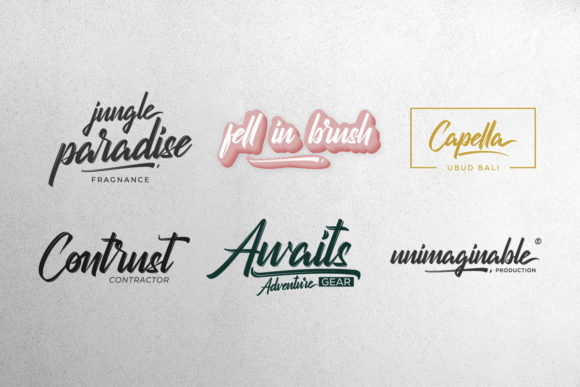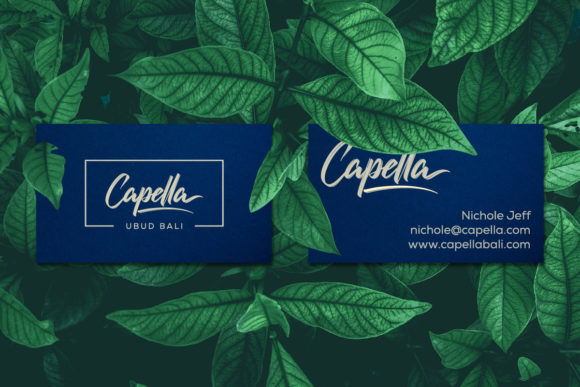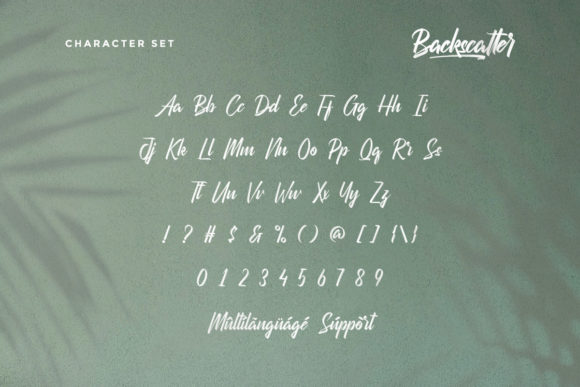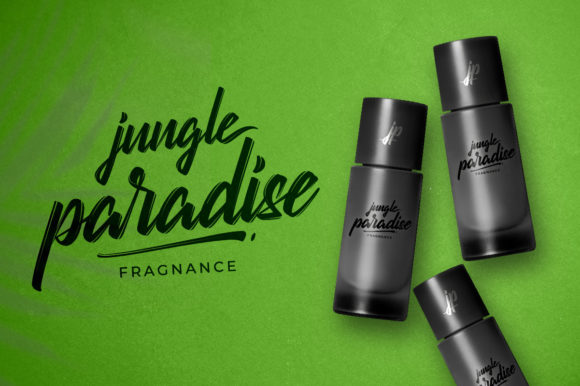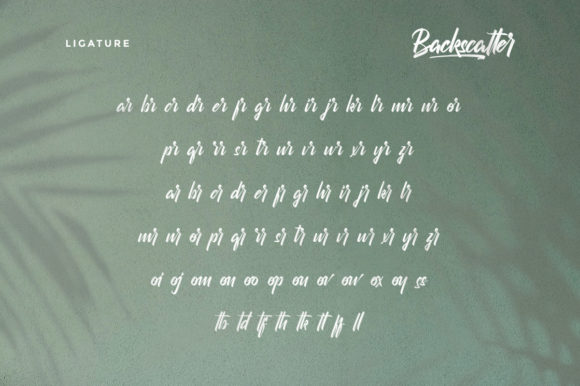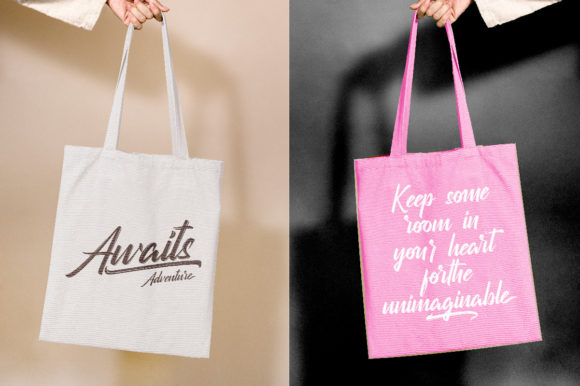
Introducing Backscatter Font: A Beautiful Cursive Brushed Script Font
Are you looking for a font that can add a touch of nostalgia and personality to your designs? Look no further than Backscatter Font, a stunning cursive brushed script font that exudes confidence and dynamism. In this article, we’ll dive into the features and benefits of Backscatter Font, and explore how it can elevate your design projects.
A Strong and Confident Font
Backscatter Font is a beautiful and elegant cursive script font that reads as strong, confident, and dynamic. Its brushed strokes give it a unique and organic feel, making it perfect for designs that require a personal touch. Whether you’re working on a branding project, a wedding invitation, or a craft project, Backscatter Font is sure to make a statement.
Nostalgic Character and Charm
One of the standout features of Backscatter Font is its ability to add tons of nostalgic character to your designs. The font’s cursive strokes and swashes evoke a sense of classic elegance, making it perfect for designs that require a vintage or retro feel. With Backscatter Font, you can create designs that are both modern and timeless, with a unique charm that sets them apart.
Backscatter Font is PUA (Private Use Area) encoded, which means that you can access all of the glyphs and swashes with ease. This encoding allows you to use the font’s full range of characters, including ligatures, swashes, and alternates, without having to worry about complicated installation or setup processes. With PUA encoding, you can focus on creating stunning designs, rather than struggling with font technicalities.
Backscatter Font is a versatile font that is perfect for designers and crafters alike. Whether you’re working on a commercial project or a personal craft project, this font is sure to inspire your creativity. With its elegant cursive strokes and nostalgic character, Backscatter Font is ideal for a wide range of design applications, including:
- Craft projects, such as scrapbooking and card making
- Digital design, including social media graphics and blog headers
Key Features of Backscatter Font
Here are some of the key features that make Backscatter Font stand out:
- Beautiful cursive brushed script font
- Strong, confident, and dynamic reading
- Nostalgic character and charm
- Perfect for designers and crafters
- Versatile and adaptable for a wide range of design applications
In conclusion, Backscatter Font is a stunning cursive brushed script font that is sure to add a touch of elegance and personality to your designs. With its strong and confident reading, nostalgic character, and PUA encoding, this font is perfect for designers and crafters alike. Whether you’re working on a commercial project or a personal craft project, Backscatter Font is a versatile and adaptable font that is sure to inspire your creativity.